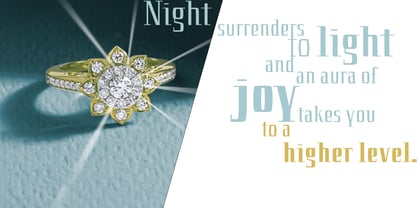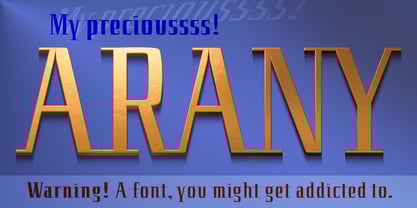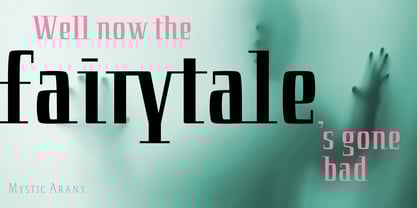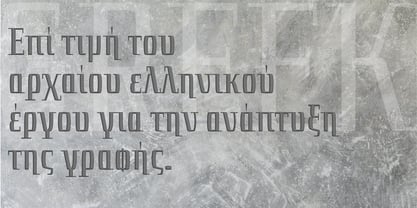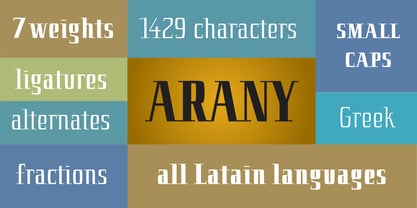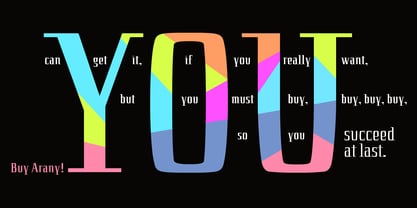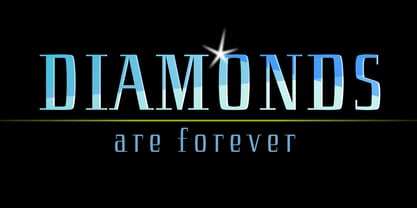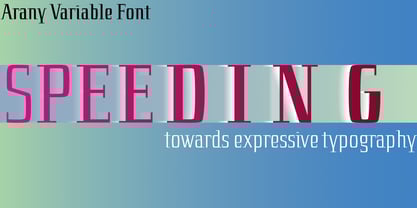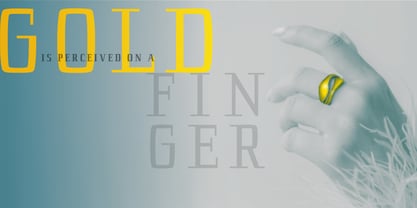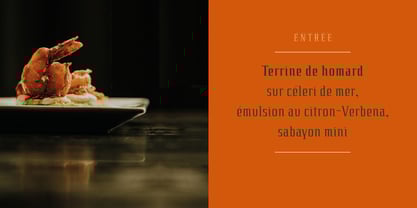
Arany
La familia tipográfica Arany fue diseñada por Hartmut Schaarschmidt y publicada por SD Fonts. Arany contiene 8 estilos y opciones de paquete familiar.
Arany, meaning "gold" in Hungarian, is a sophisticated typeface that reinterprets the timeless characteristics of classical Antiqua. It showcases fine hairlines, broad main strokes, and a high x-height, preserving a strong connection to traditional styles while distinguishing itself with narrow, sharply angular base forms. This design choice enhances the elegant strictness of classical typography, repositioning it within a modern context. With its fresh and refined appearance, Arany embodies value-driven statements and exclusive visual identities. Its noble severity makes it an ideal choice for high-quality branding, editorial design, and captivating narratives in the vampire and horror genres, ensuring a striking visual impact. Additionally, Arany supports all Latein languages and basic Greek, making it versatile for various applications.